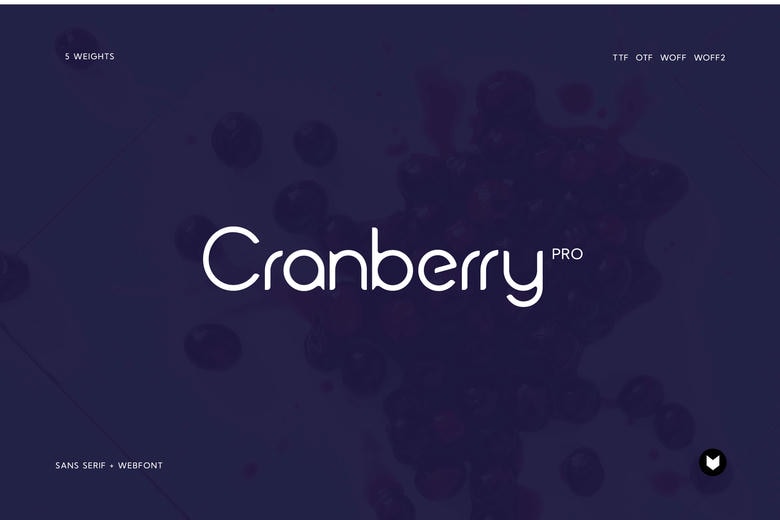
Cranberry Font
Cranberry is a cool, modern and adaptable sans serif font. Suitable to a wide variety of designs due to its neat and simple style, this font has the potential to become your favorite go-to font, no matter the occasion!
Cranberry Sans Serif Font